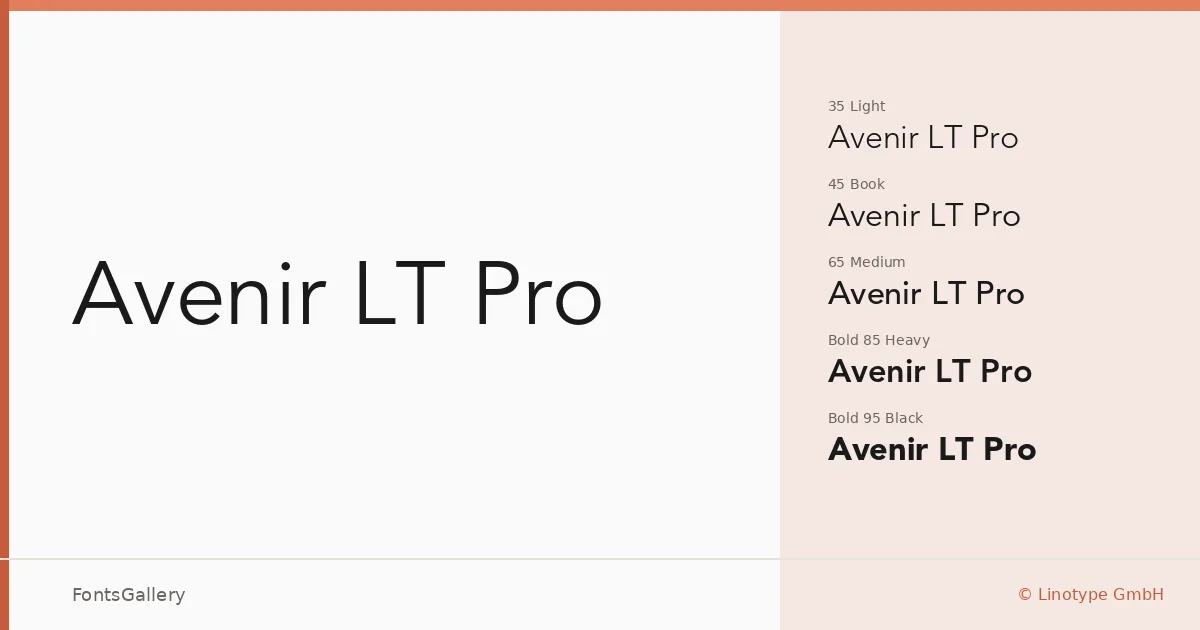
About Avenir LT Pro Font
Adrian Frutiger drew this face in 1988 after spending years thinking carefully about what a geometric sans could become if it was freed from strict geometric dogma. The name means "future" in French, and the debt to Futura is acknowledged — but Frutiger deliberately departed from pure geometry: the vertical strokes are heavier than the horizontals, the "o" is not a perfect circle, and the ascenders are kept deliberately short. Those quiet decisions make the letterforms feel rational without feeling cold, and readable without feeling bland.
The family spans twelve cuts across the OTF format — Light and Light Oblique, Book and Book Oblique, Roman and Oblique at the 55 weight, Medium and Medium Oblique, and then Heavy and Heavy Oblique through to Black and Black Oblique — giving a thorough range from delicate text weights to commanding display mass. The overall mood is elegant and minimal, with a professional clarity that sits comfortably in both small text settings and large headlines. The oblique styles feel like genuine complements rather than afterthoughts, maintaining the same sensible proportions as the uprights throughout.
The range of weights makes this a natural fit for branding systems, magazine layouts, website headers, business cards, and logo work where consistency across scales matters. Latin character coverage handles the core European languages you'd encounter in most professional publishing contexts. For pairing, the family works well alongside Canela, Armelie, 321 Impact, AQUA, and Kactigona, each offering a different tonal contrast — from editorial warmth to display energy — depending on the job at hand.